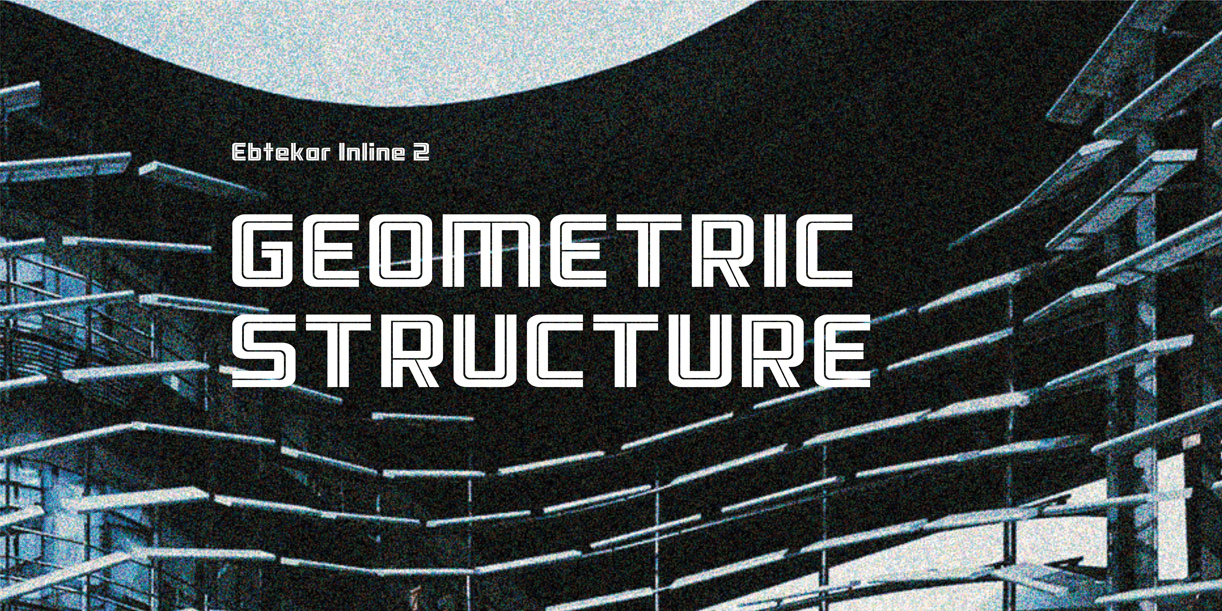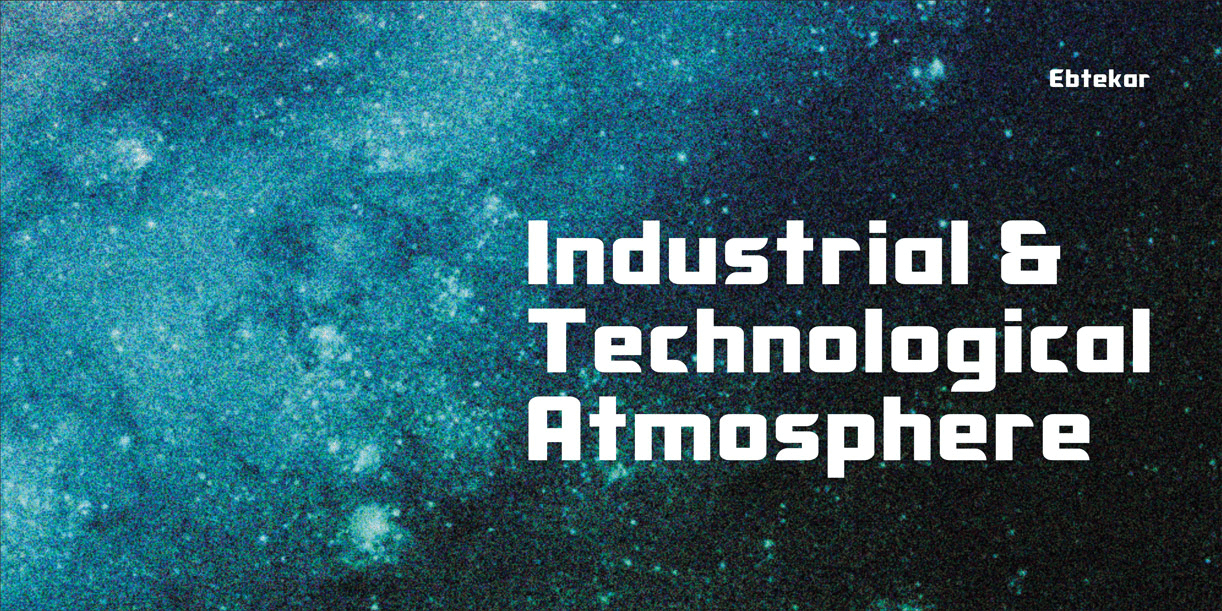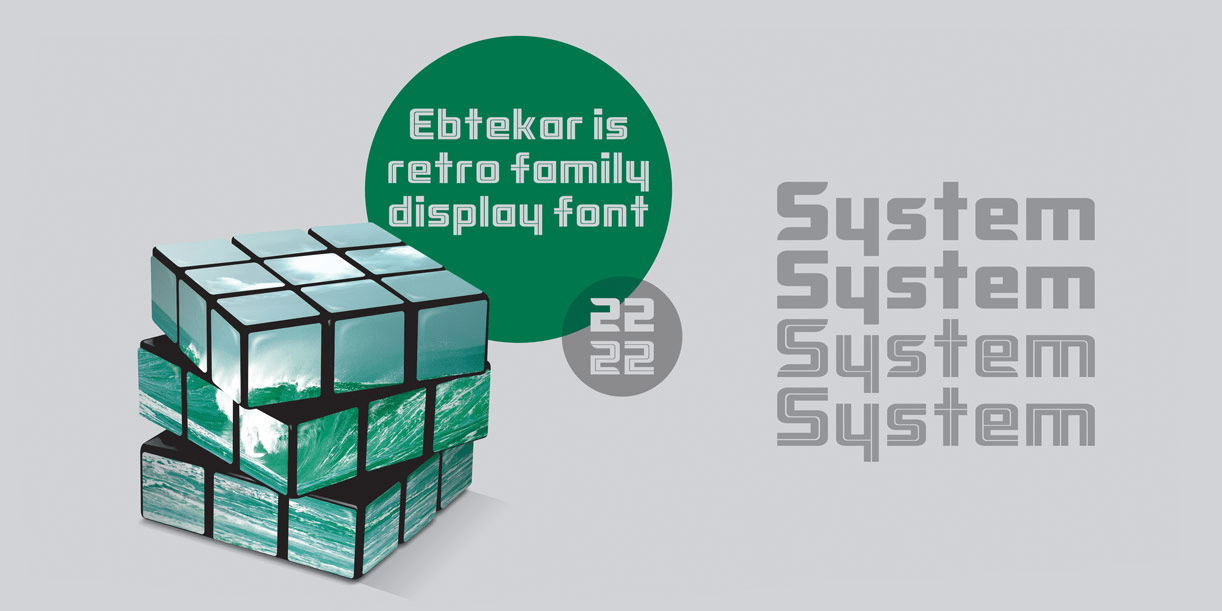
Ebtekar
Font Family by Arman Khorramak
Ebtekar is retro family display font whose geometric structure refers to more scientific, industrial and technological atmosphere.
Ebtekar has two different styles; Normal and Inline. In Latin part, there are also two different types for each style with some practical changes.